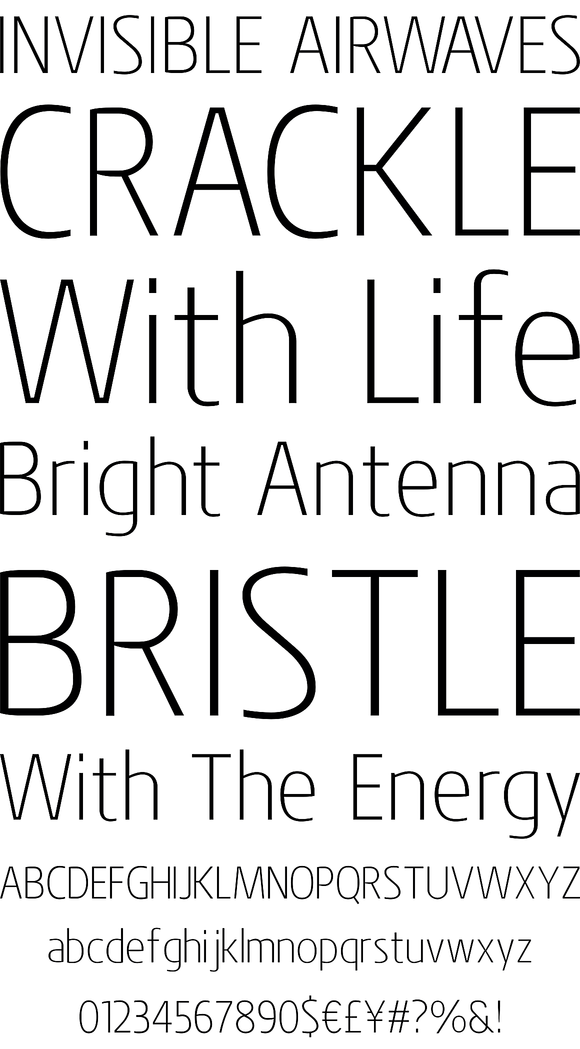
A humanistic sans-serif typeface with subtle chamfer detailing. It's strong lateral emphasis is combined with open apertures to create sharp and legible letter forms. These balanced and narrow proportions make it ideally suited to a variety of online applications. Details include 8 weights, a standard character set, manually edited kerning and Euro symbol.